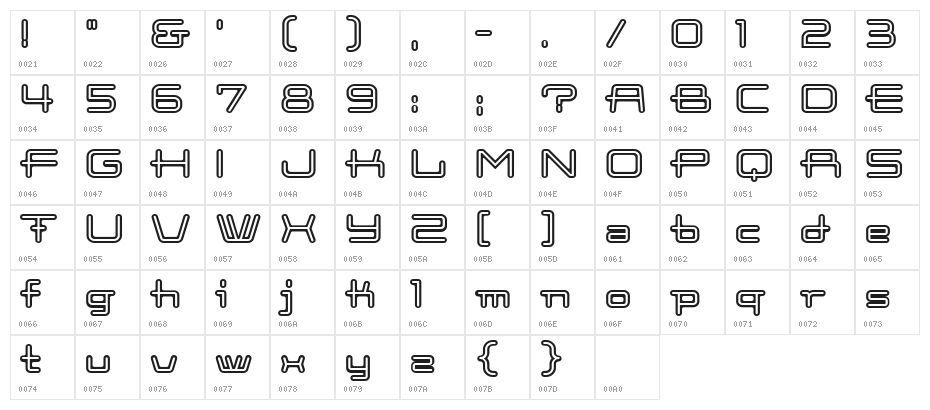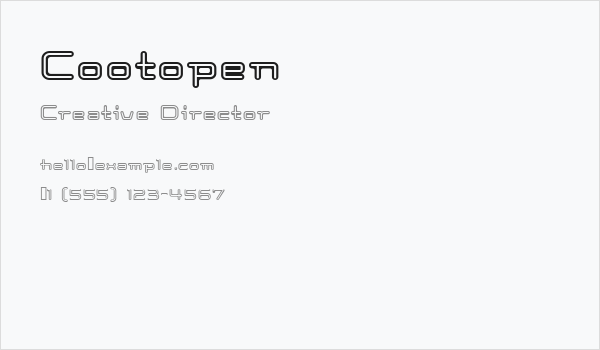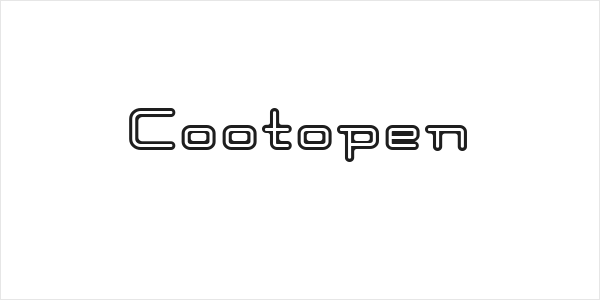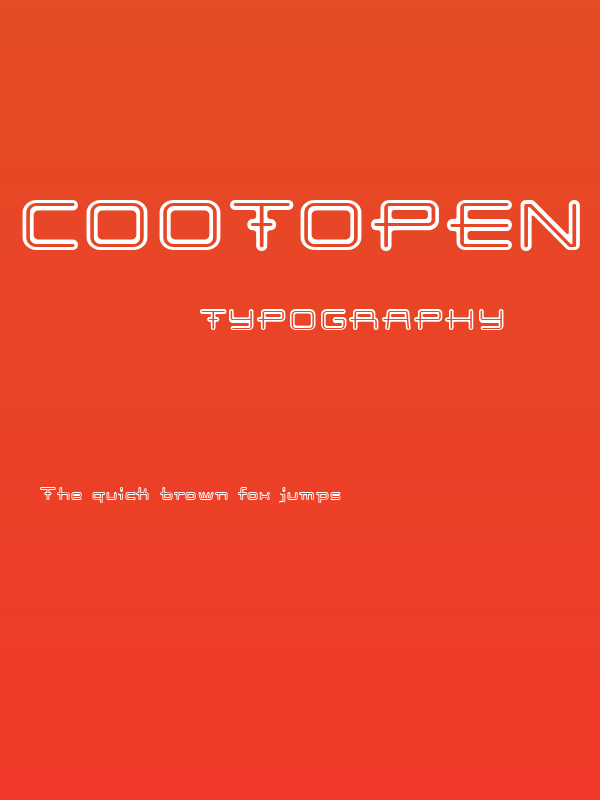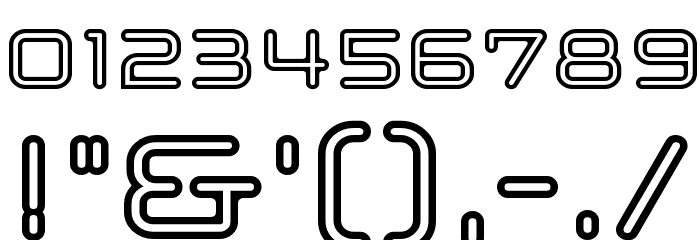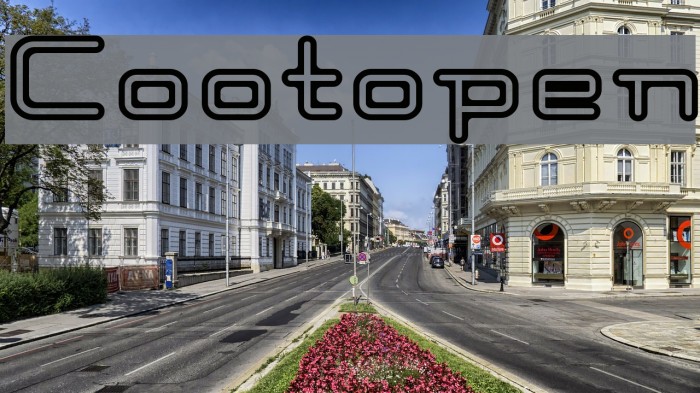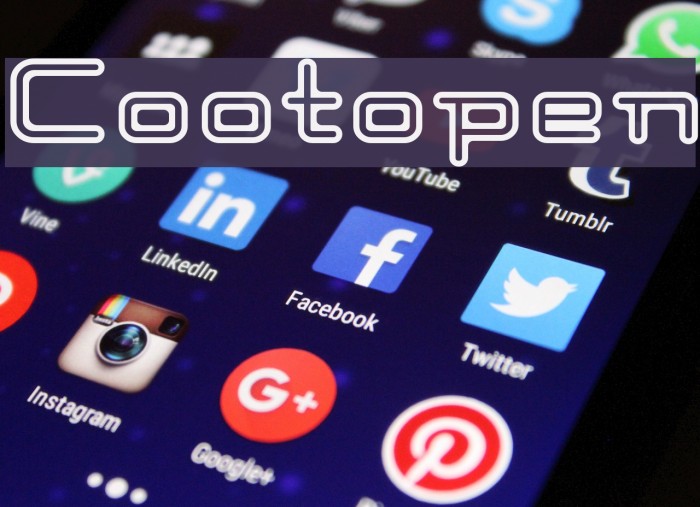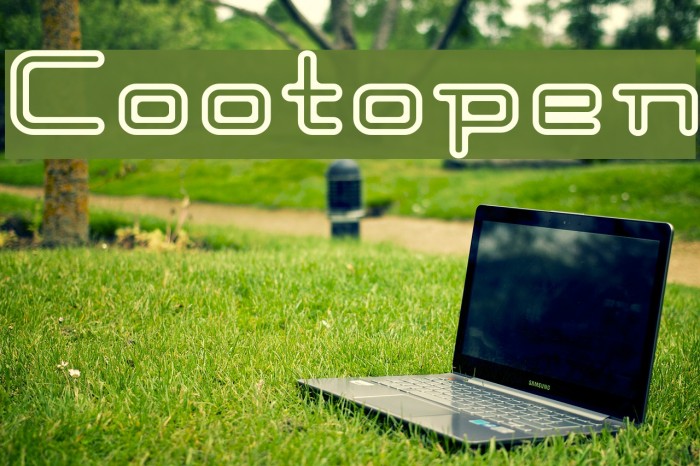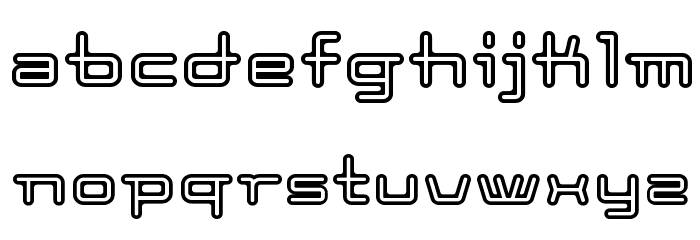
Cootopen Font
Cootopen Description
This font features a unique, futuristic design with a double-line structure that creates a hollow effect. The characters are geometric and uniform, with rounded edges that soften the overall appearance. The uppercase and lowercase letters maintain a consistent style, with a slight variation in height and width that adds visual interest. The numerals and special characters follow the same design principles, ensuring a cohesive look across all elements. This font's distinct style makes it stand out, while its readability remains intact due to the clear separation between characters.
| Proposed Projects | Ideal for sci-fi themed projects, modern branding, tech-related designs, and creative posters. |